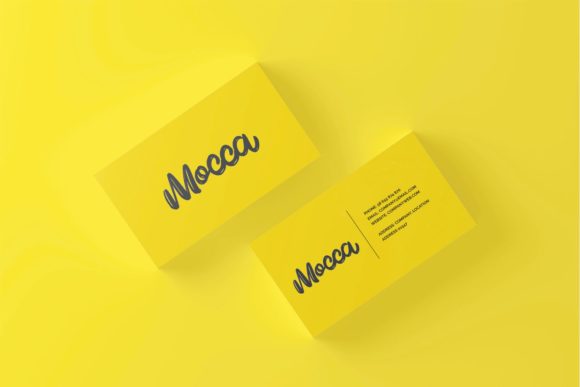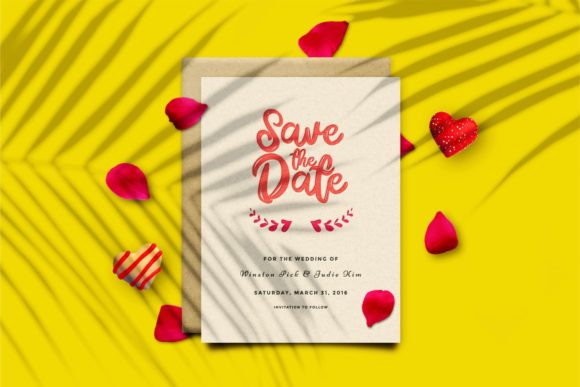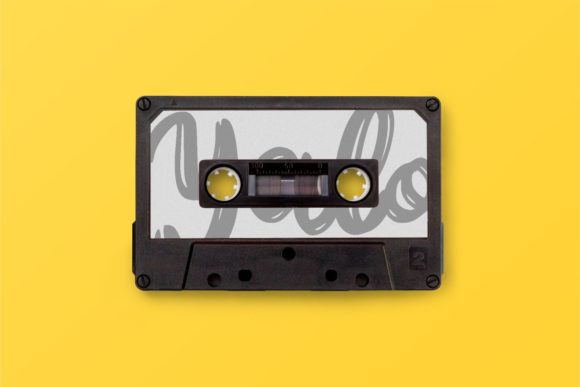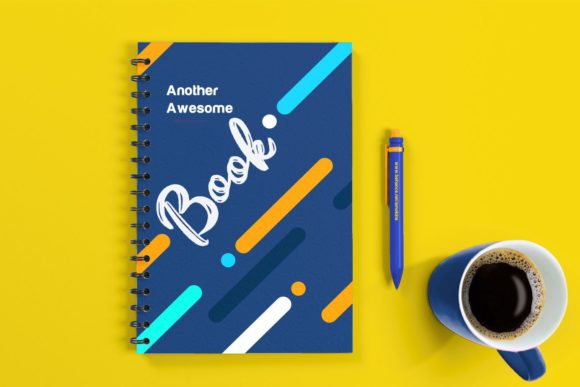
HomeScript FontsDare Daling Font Script Fonts Dare Daling Font FacebookXPinterestWhatsApp Dare Daling Font Poster 2 Dare Daling Font Poster 3 Dare Daling Font Poster 4 Dare Daling Font Poster 5 About Dare Daling Font Dare Daling is a friendly and modern script font with unique style. Get inspired by its contemporary charm! DOWNLOAD ON CREATIVE FABRICAThis font is sold and delivered by Creative Fabrica. Font Canyon may earn a commission if you buy through this link. People also explored Daliya Abigen Homeschool Font Mug Mockup Mint Green Mock Up Christmas Ginger Font Jealous Font Crossfit Core Heritage Font Kevin Aprilio Font Smart Font 383 0 TagsDare Daling Font Previous articleHafala FontNext articleZildjan Font LEAVE A REPLY Cancel reply Comment: Please enter your comment! Name:* Please enter your name here Email:* You have entered an incorrect email address! Please enter your email address here Website: Save my name, email, and website in this browser for the next time I comment. Personal Use Free Kidly Personal Use Free Read more about this font Hubbies Personal Use Free Read more about this font Unsteady Overseer Personal Use Free Read more about this font Straighler Personal Use Free Read more about this font BLOG Modern Sans-Serif Fonts That Brands Love in 2025 In 2025, modern sans-serif fonts remain a top choice for brands looking to project clarity, professionalism, and... Where to Buy American Fonts Online in 2024 Exploring Font Trends Best Fonts for T-Shirt Design – Top 2025 Picks